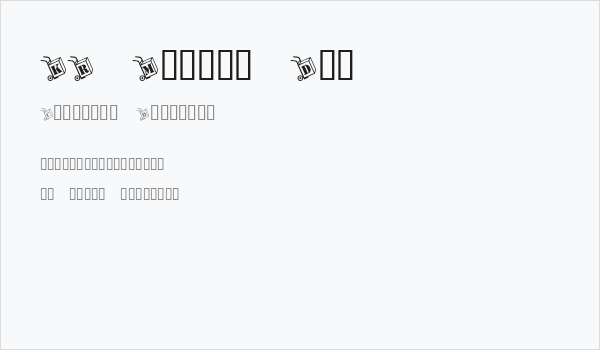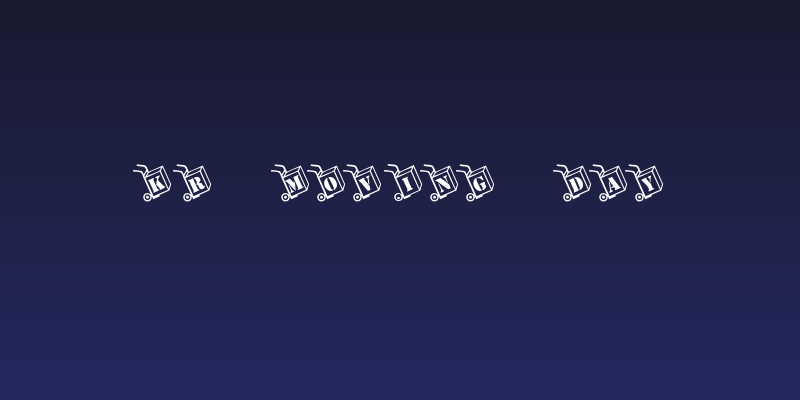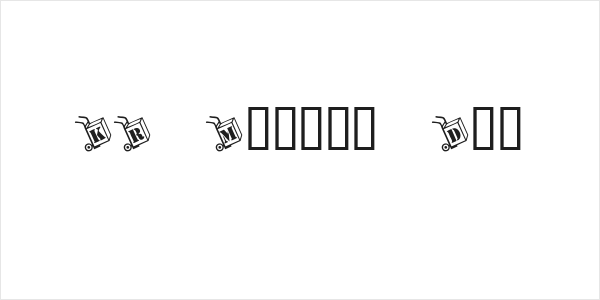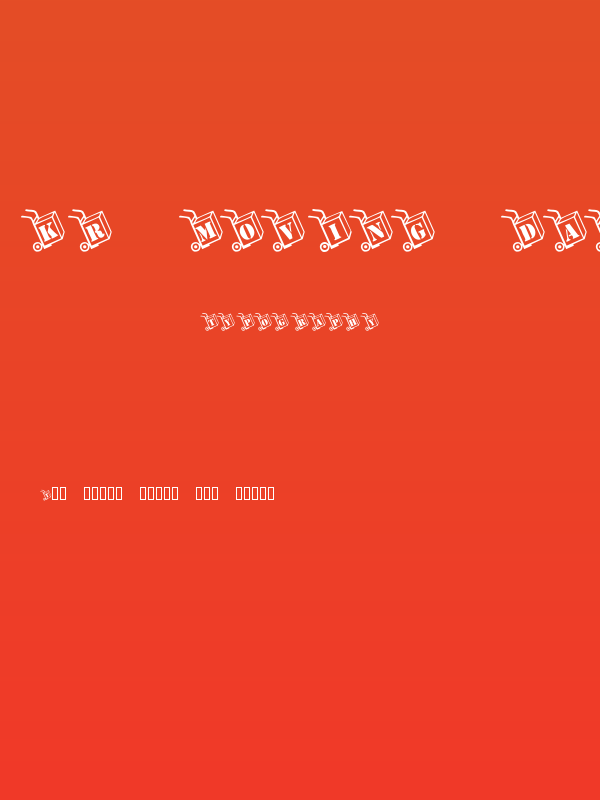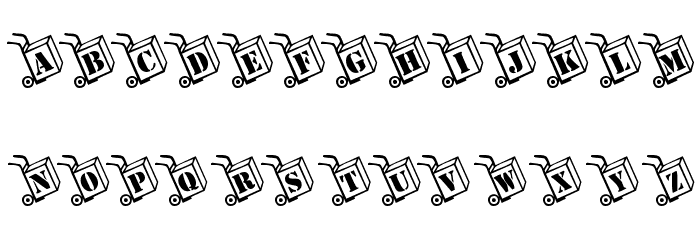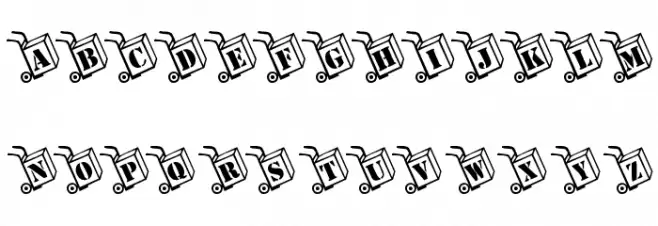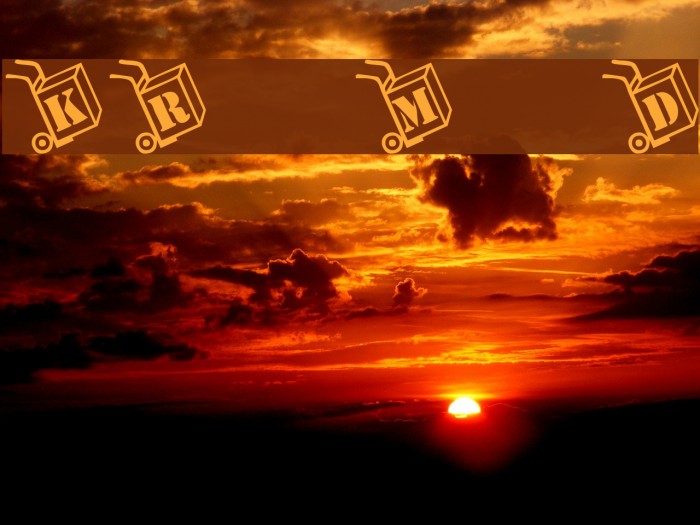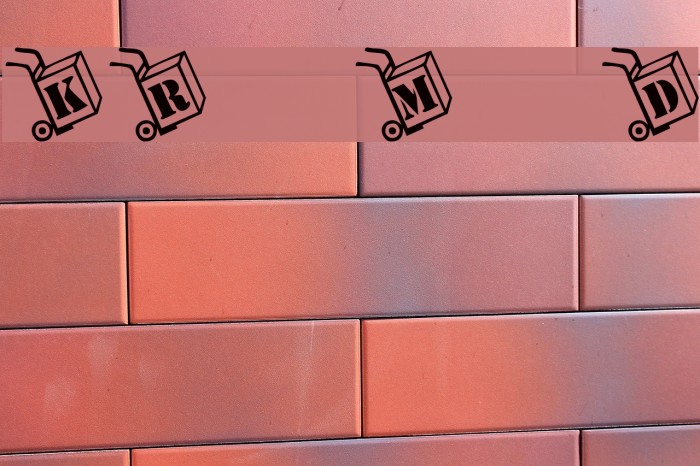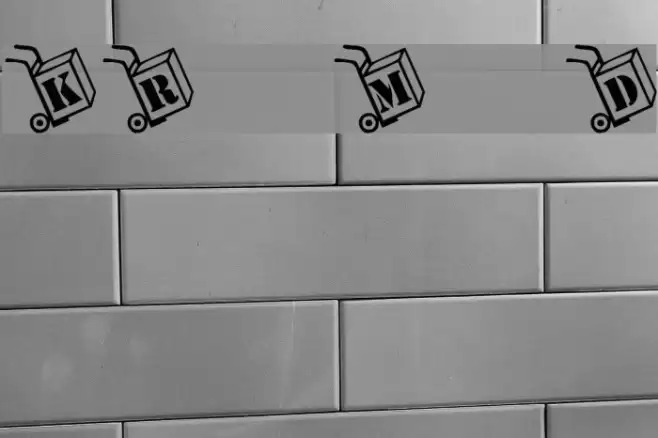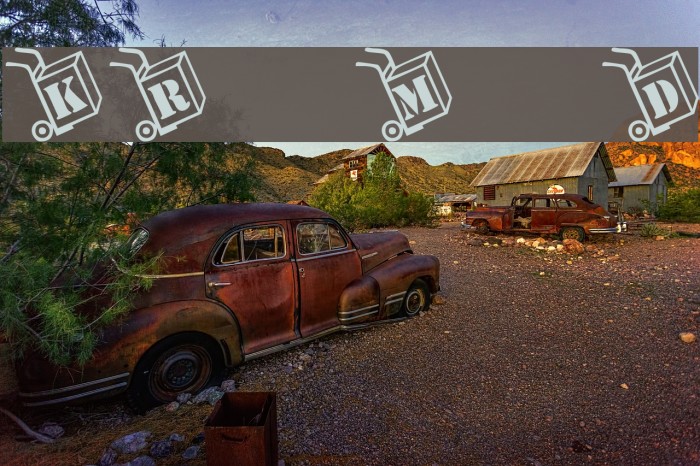
KR Moving Day Font
KR Moving Day Description
This playful and whimsical font features each letter encased within a stylized hand truck or dolly, giving the impression of movement and transport. The letters are bold and uppercase, with a slight slant that enhances the dynamic feel. The design is outlined, providing a clear and distinct look that stands out against various backgrounds. The font's unique theme makes it ideal for projects that require a fun and lighthearted touch, such as children's books, event posters, or moving company branding.
| Proposed Projects | Ideal for children's books, event posters, moving company branding, and playful advertisements. |